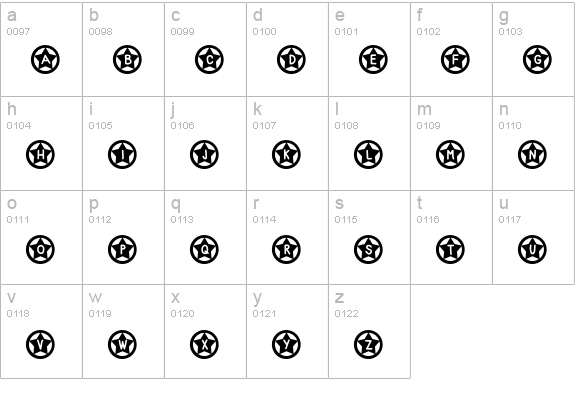
Startone Font Details
Startone is a stunning font that exudes elegance and sophistication. Its sleek and modern design is perfect for adding a touch of class to any project. With its clean lines and graceful curves, Startone stands out from the crowd and commands attention. What makes Startone even more remarkable is that it is free. Yes, you read that right - this amazing font is freely available to download at FontsMarket.com. Whether you're a professional designer or someone looking to add a personal touch to their creations, Startone is the perfect choice. With Startone, you have the freedom to create stunning designs without any limitations. Its versatility allows it to be used in a wide range of applications, from logos and branding to advertisements and invitations. It is truly a font that can elevate any project to new heights. Not only does Startone offer a visually pleasing aesthetic, but it also ensures readability and legibility. Its carefully crafted letterforms guarantee that your message will be conveyed effortlessly, making it a great choice for both small and large blocks of text. Furthermore, Startone is compatible with various devices and software, making it easy to incorporate into your workflow. Whether you're working on a Mac or a PC, designing in Adobe Illustrator or Microsoft Word, Startone will seamlessly fit into your creative process. So why wait? Experience the beauty and versatility of Startone today by downloading it for free at FontsMarket.com. Join countless designers and enthusiasts who have already fallen in love with this remarkable font. Startone is a game-changer, and it's yours for the taking.